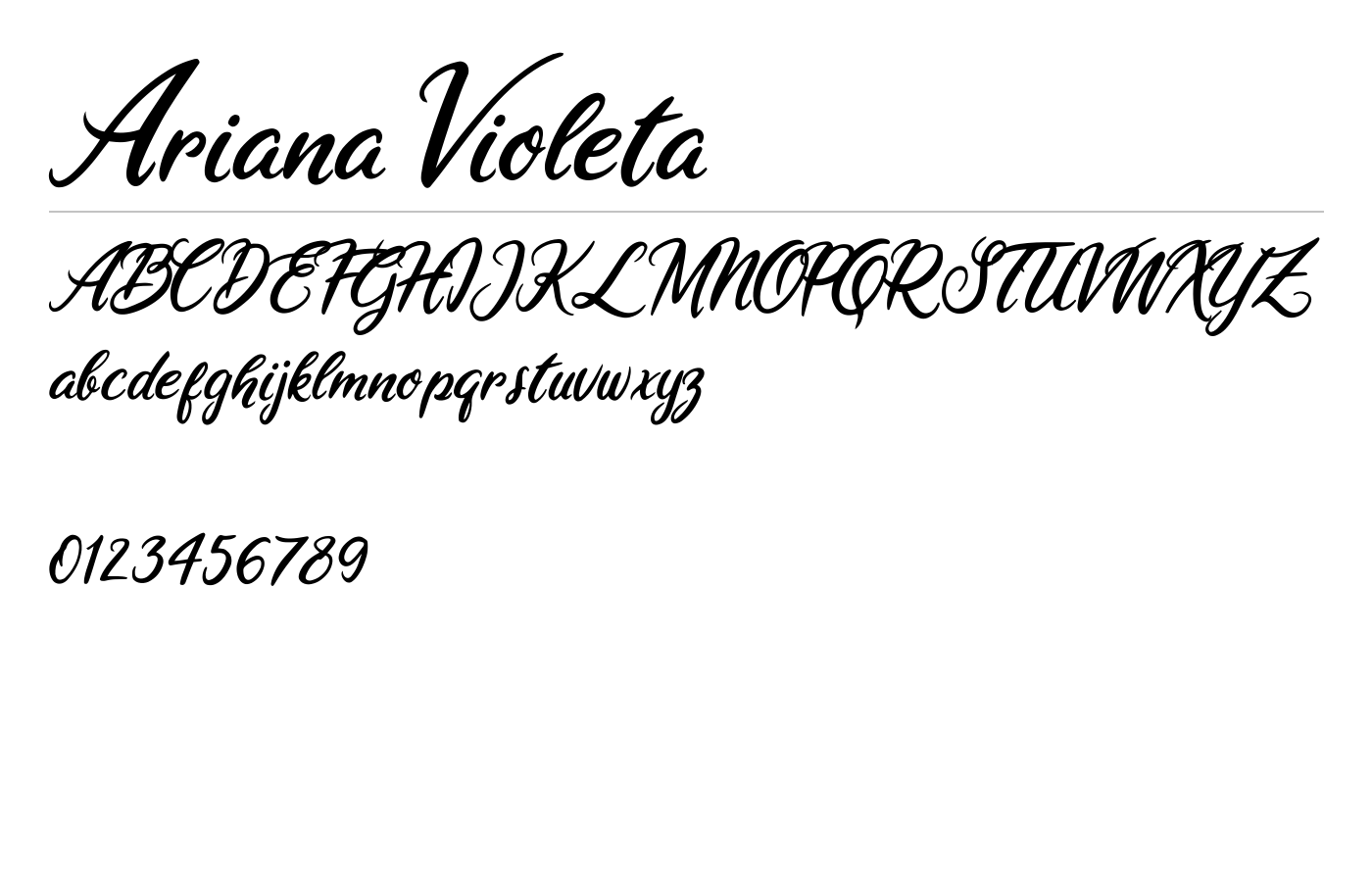
Ariana Violeta is an elegant script font with a smooth, flowing style that mimics classic calligraphy. Its moderately high contrast and graceful curves give it a refined and sophisticated look, making it ideal for invitations, branding, and luxury-focused designs. This font works best in headlines or decorative text where a touch of elegance and personality is desired.
Ariana Violeta Font
About Ariana Violeta Font
| Font family | Ariana Violeta Font |
| Designer | Fenny Wiryani |